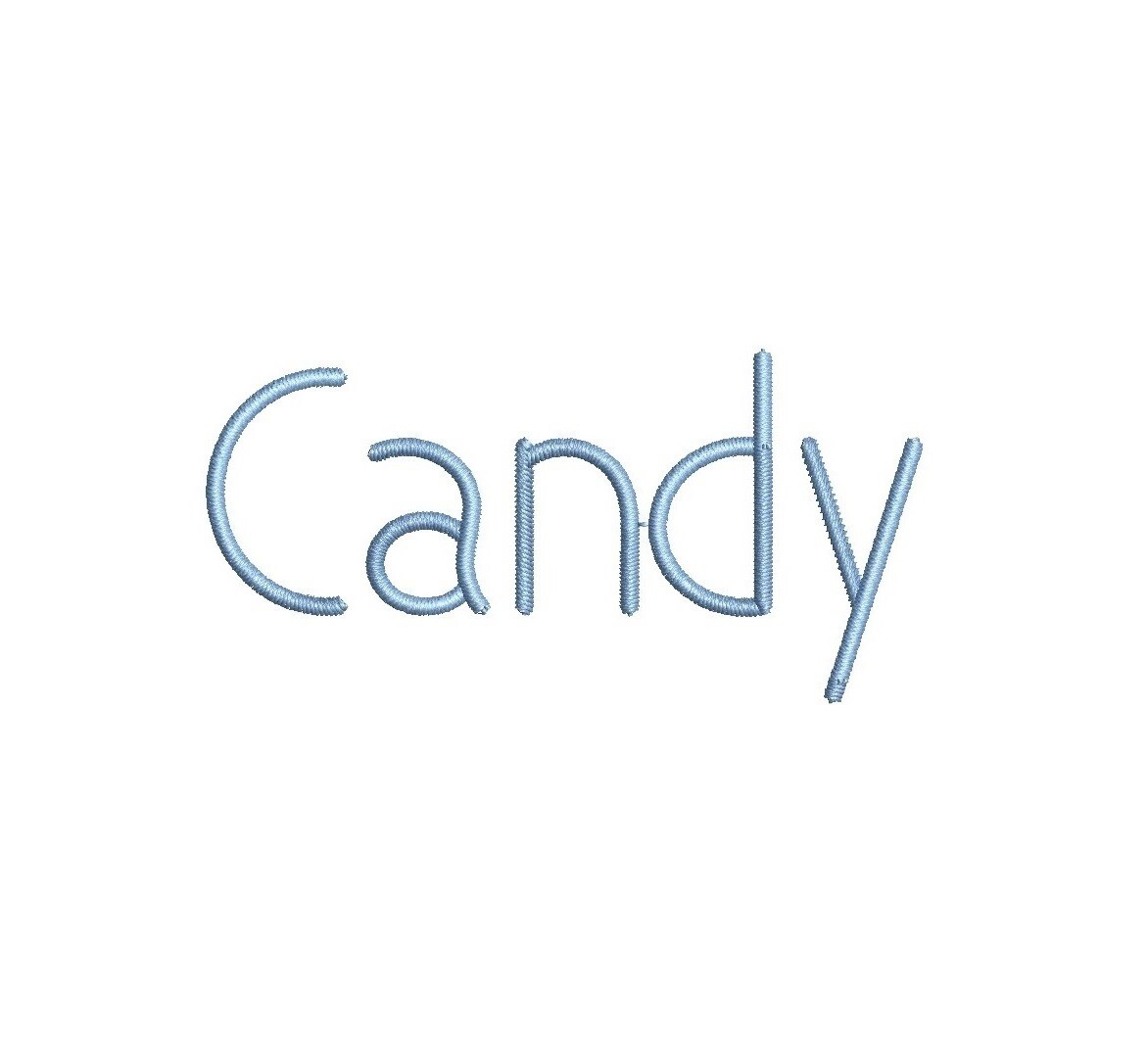
Indulge in sweetness with Candy Regular ESA font, a delightful choice for your design projects. This charming typeface ensures seamless compatibility with Wilcom Studio e4.5.6 and Hatch 3 versions and above. Crafted with meticulous precision, its playful letterforms and vibrant curves infuse your creations with a joyful spirit. Elevate your designs with Candy Regular ESA's versatility, perfect for candy stores, children's books, logos, and more. Let your creativity run wild as you add a touch of sugary delight to your work. Unleash your artistic vision with this font, tailored for Wilcom Studio e4.5.6 and Hatch 3 versions and beyond.